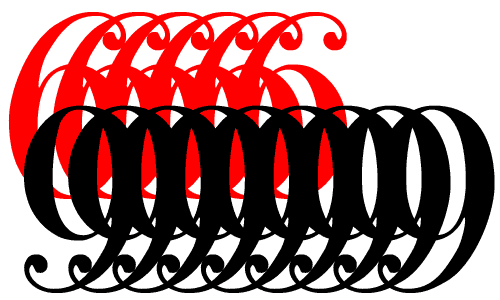
Sumner Stone
The design uses numerals from Giambattista Bodonis Manuale
of 1818. The idea came to me some years ago when I started making
birthday cards for my friends which consisted of 50 50s.